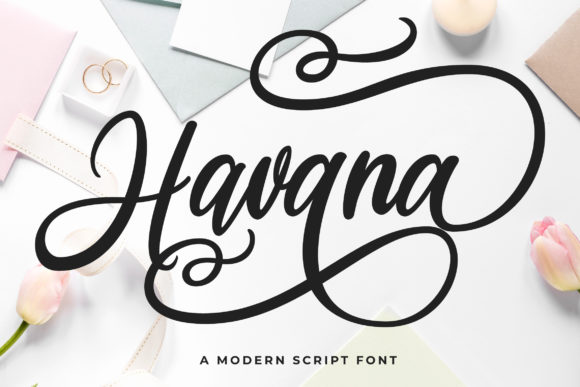
Introducing Havana Font, a captivating script font that adds a touch of charm and elegance to your creative projects. This exquisitely crafted font, brought to life by the talented Fallengraphic, exudes a sweet and tender handwritten aesthetic that will make your designs shine.
With its delicate curves and flowing strokes, Havana Font captures the essence of a warm embrace, inviting your audience into a world of heartfelt emotions and cherished memories. Whether you're creating wedding invitations that evoke a sense of timeless romance, designing eye-catching social media posts that demand attention, or crafting greeting cards that convey warmth and affection, Havana Font is the perfect choice.
Immerse yourself in the beauty of Havana Font and let your imagination run wild. Embrace its versatility and find endless possibilities in your creative endeavors. From elegant wedding stationery and heartfelt love letters to whimsical children's books and charming branding designs, Havana Font effortlessly elevates your projects to new heights.
Experience the magic of Havana Font today and unlock a world of creative wonders. Whether you're a seasoned designer or just starting your creative journey, this font will captivate your heart and inspire you to create designs that leave a lasting impression. Embrace the beauty of handwritten elegance and embark on a journey of artistic expression with Havana Font.